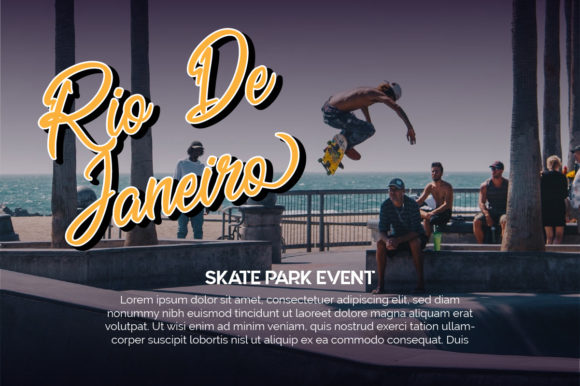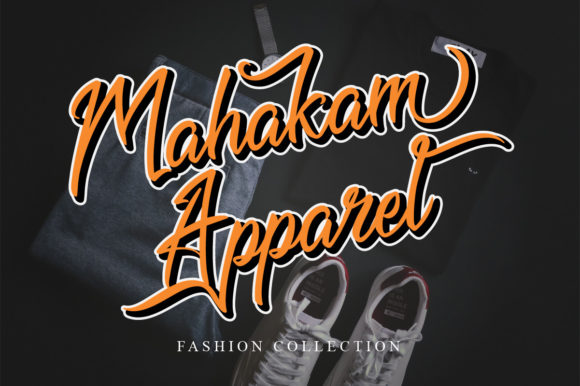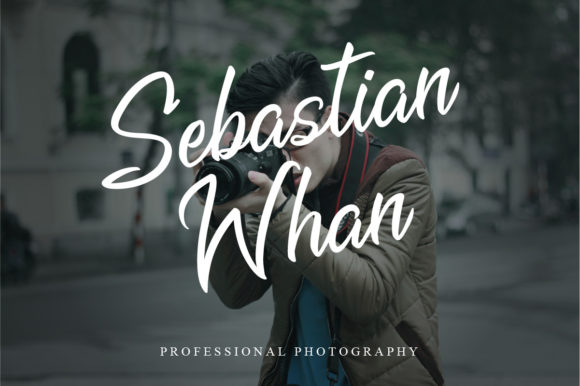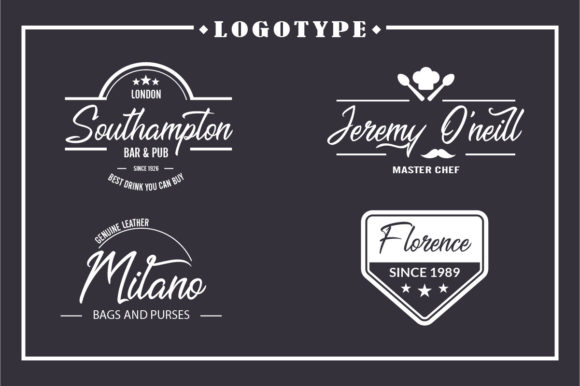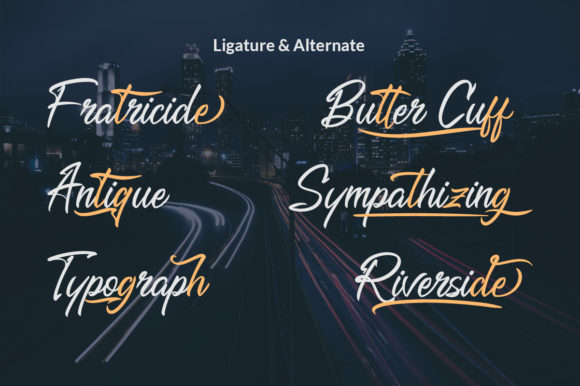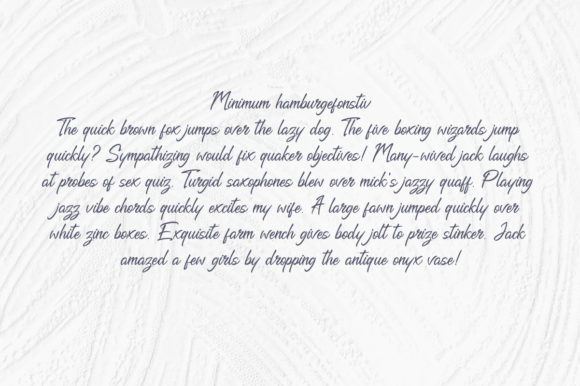
Have you ever stared at a blank page, wondering what font will bring your project to life? The perfect font can make all the difference, and for many designers, the search is over with the introduction of the Brightmoon Font. This modern and stylish script font exudes sophistication and elegance, making it the perfect match for any project.
Whether you’re designing a wedding invitation, a logo, or a marketing campaign, the Brightmoon Font is sure to impress. Its stylish alternates and ligatures provide endless possibilities for creative expression, while its PUA encoding makes it easy to access all the glyphs and swashes you need.
Brightmoon Font Key Features
- Font Family: Brightmoon Font offers a range of font styles, including sans-serif, serif, and script fonts, to cater to various design needs.
- Unique Characteristics: Brightmoon Font features a unique blend of modern and vintage elements, making it perfect for designs that require a touch of elegance and sophistication.
Brightmoon Font Review
Overall, I’m impressed with the Brightmoon Font. It has a unique, dreamy quality that could be perfect for creative projects. ✨ The font’s bold, cursive lines add a touch of elegance, making it suitable for headings and titles.
Here are some of the things that work well with the Brightmoon Font:
- ✨ Unique, hand-drawn feel that adds character to text
- ✨ Suitable for creative projects, such as invitations, posters, and magazines
- ✨ Elegant, cursive lines that add a touch of sophistication
- ✨ Easy to read, even in smaller font sizes
- ⚠️ Limited font styles and weights available (only one style, with no bold or italic options)
- ⚠️ Not suitable for body text, as it can be difficult to read in large blocks of text
- ⚠️ May not be suitable for digital applications, such as websites or e-books, due to its handwritten feel
Overall, I think the Brightmoon Font is a great choice for creative projects that require a unique, elegant touch. While it may have some limitations, it’s a great option for those looking to add some personality to their designs.
Yes, the Brightmoon Font is highly customizable, with advanced features such as ligatures, fractions, and stylistic sets. You can also use font editing software like FontLab or FontForge to create custom variations of the font.